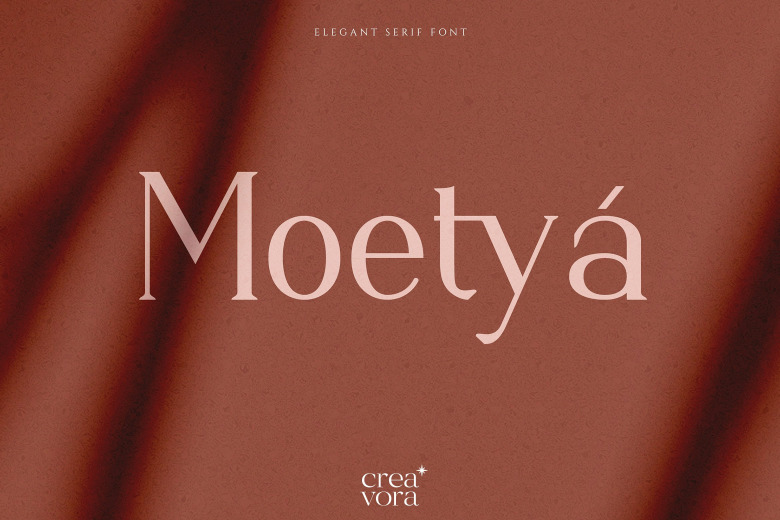
Moetya Font
Moetya is an elegant, delicate and thin lettered serif font. This font is PUA encoded which means you can access all of the glyphs and swashes with ease! Fall in love with its incredibly versatile style and use it to create spectacular designs!
This font is suitable to be applied to beauty magazine logos, beauty, and fashion product logos, writing for creator content, titles on layouts, and other luxurious things.